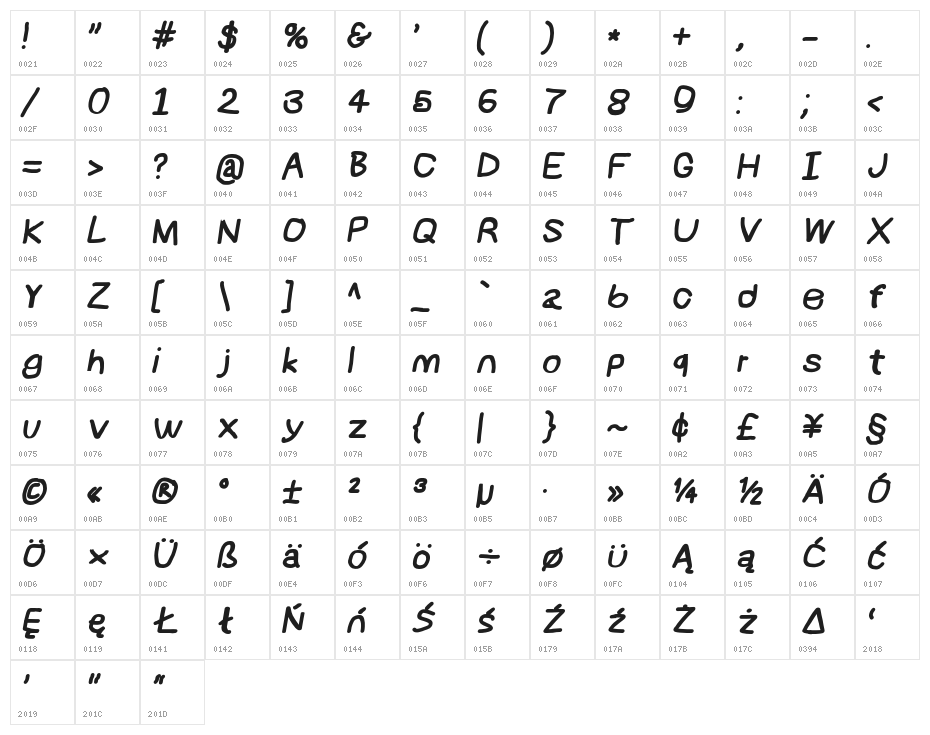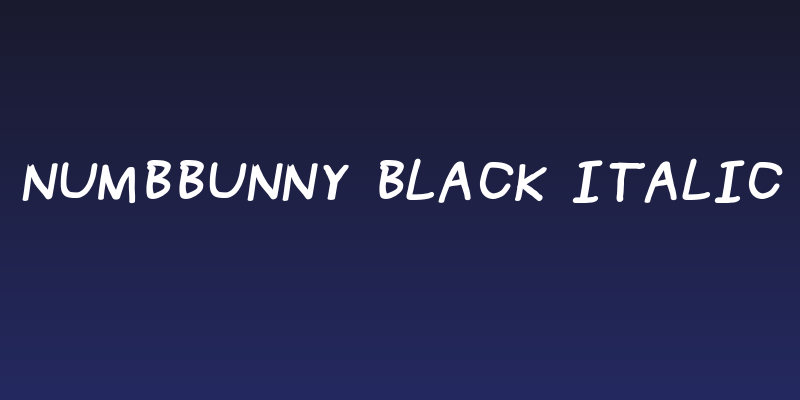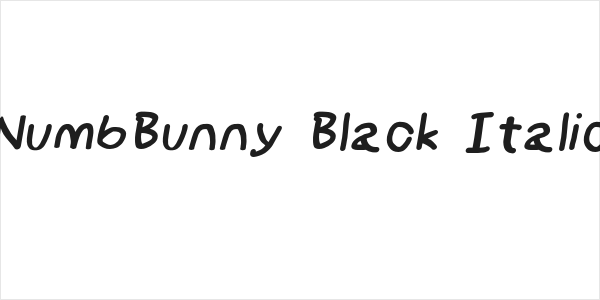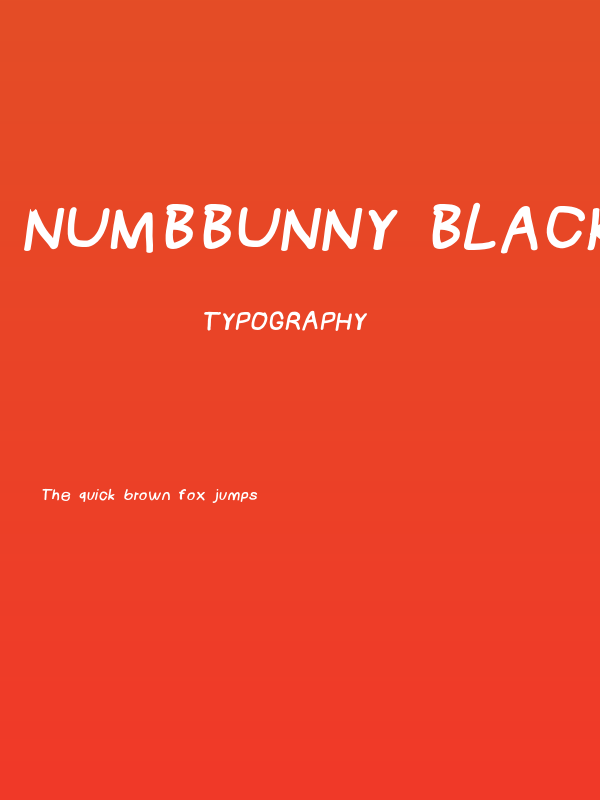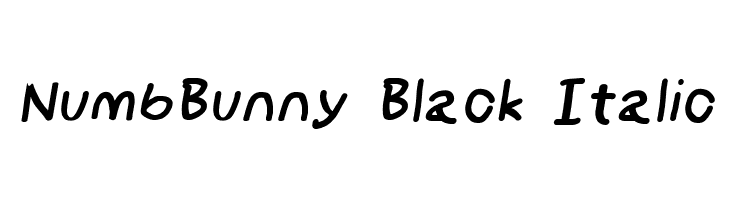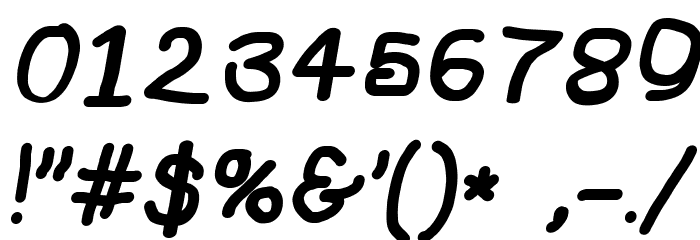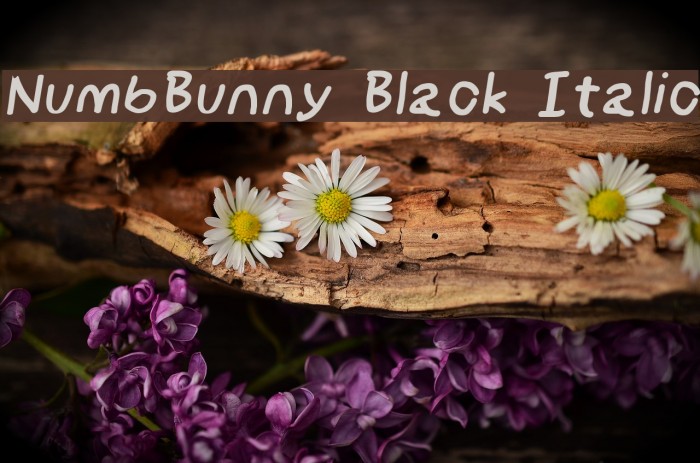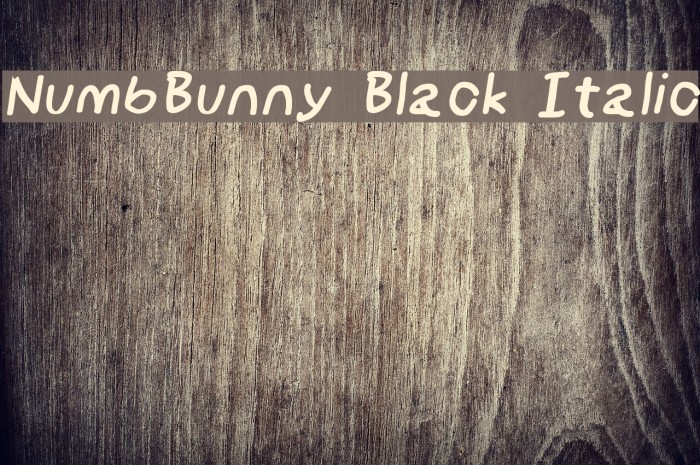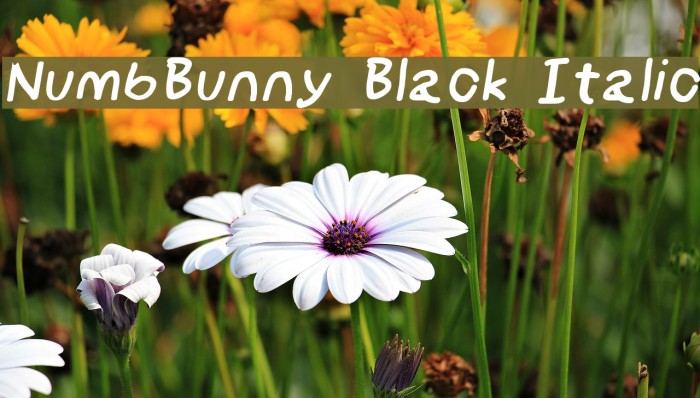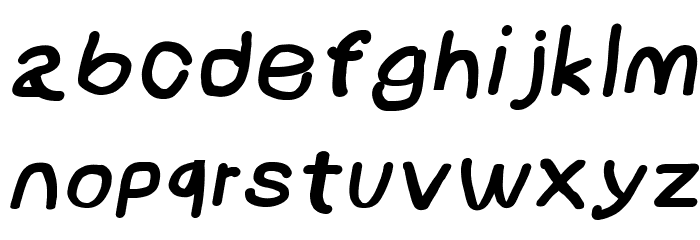
NumbBunny Black Italic Font
NumbBunny Black Italic Description
This playful and energetic font features a handwritten style with a bold and italicized appearance. The characters are rounded and slightly slanted, giving a sense of movement and dynamism. The uppercase and lowercase letters maintain a consistent flow, while the numbers and special characters complement the overall design. The font's informal and friendly nature makes it suitable for creative and casual projects. Its bold strokes and smooth curves ensure readability while adding a touch of personality.
| Proposed Projects | Ideal for children's books, playful branding, greeting cards, and creative posters. |